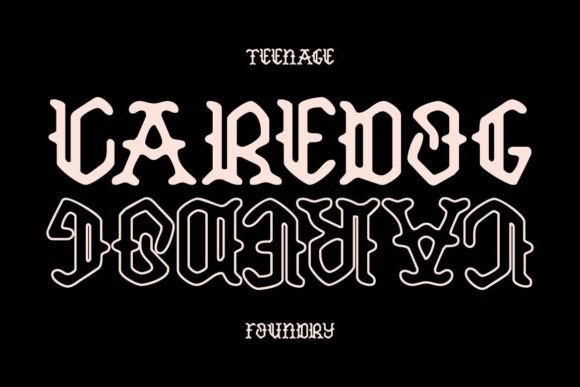
Dive into the Realm of Graphic Design Prowess with Caredog: Your Gateway to Mesmerizing Visual Expressions
In the realm of visual artistry, fonts reign supreme, shaping the narratives of design and igniting the imagination of creatives worldwide. As you embark on your quest for the perfect font to elevate your graphic designs to new heights, allow us to introduce you to Caredog, a blackletter font that will unleash your creative potential like never before.
Caredog: A Masterpiece of Bold Lines and Unforgettable Charm
With its striking blackletter strokes and an aura of audacious personality, Caredog emerges as the ultimate font for those who seek to make a lasting impact. Its bold lines command attention, while its intricate details reveal a depth of character that will leave your designs forever transformed.
Unleash Your Creative Vision with Caredog's Limitless Versatility
Caredog's versatility is a symphony of creative possibilities, harmonizing effortlessly with an array of design styles. Whether you seek to craft eye-catching logos, captivating posters, or stunning social media graphics, Caredog stands ready to amplify your vision and ignite the imaginations of your audience.
Tap into the Power of Emotional Connection
Caredog possesses an uncanny ability to forge an emotional connection with your audience, evoking sentiments of strength, confidence, and playful charm. Its bold strokes exude a sense of unwavering determination, while its playful curves inject a touch of lightheartedness that resonates with viewers on a deeper level.
Experience the Creative Freedom of Caredog
With Caredog as your design companion, you'll discover a newfound freedom to express your creative genius. Its user-friendly nature makes it accessible to designers of all skill levels, empowering you to bring your boldest visions to life with effortless ease.
Join the Caredog Revolution: Embrace Design Excellence
As you embrace Caredog, you'll find yourself immersed in a community of like-minded creatives who share your passion for visual excellence. Together, you'll embark on a journey of inspiration, pushing the boundaries of design and leaving an indelible mark on the world of graphic artistry.